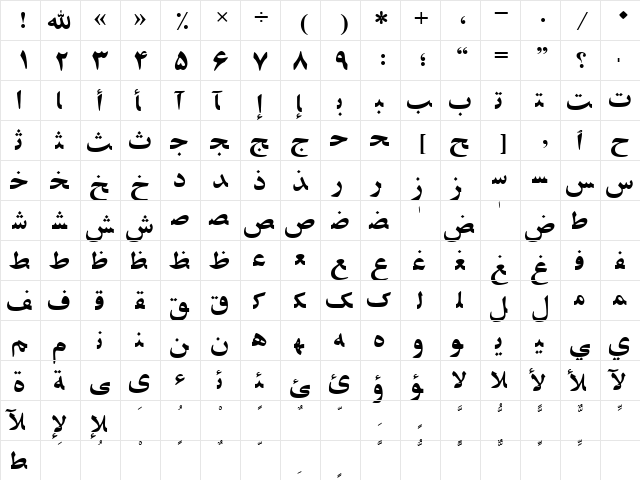
PersianZibaSSK Regular Font Preview
PersianZibaSSK Regular
PersianZibaSSK Regular Font Details
Design Context for PersianZibaSSK Typeface
PersianZibaSSK is a composed and adaptable typeface that performs quietly and consistently across a wide range of design contexts.